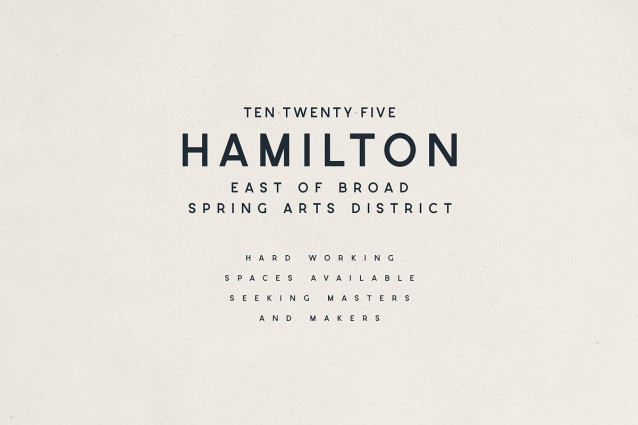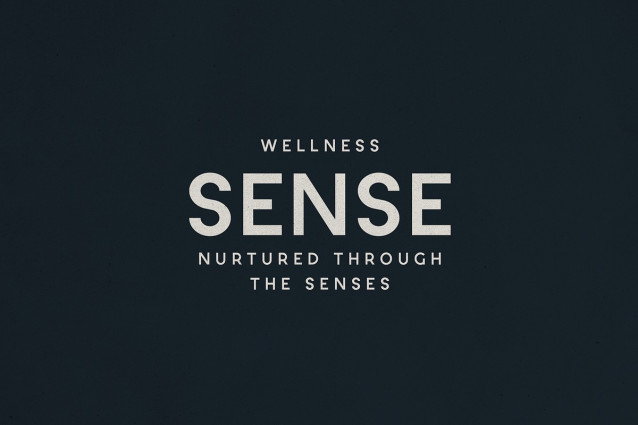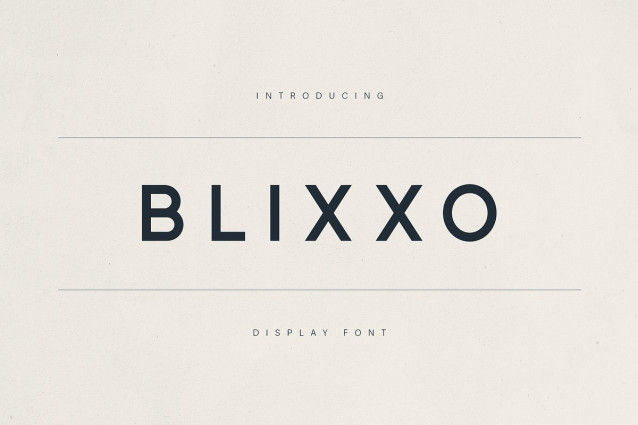
Blixxo Font
Blixxo Font is a modern, minimalist display typeface crafted for brands that seek clarity, elegance, and a refined presence. With clean lines, balanced proportions, and a strong geometric foundation, Blixxo brings sophistication to editorial designs, lifestyle branding, signage, and digital interfaces.